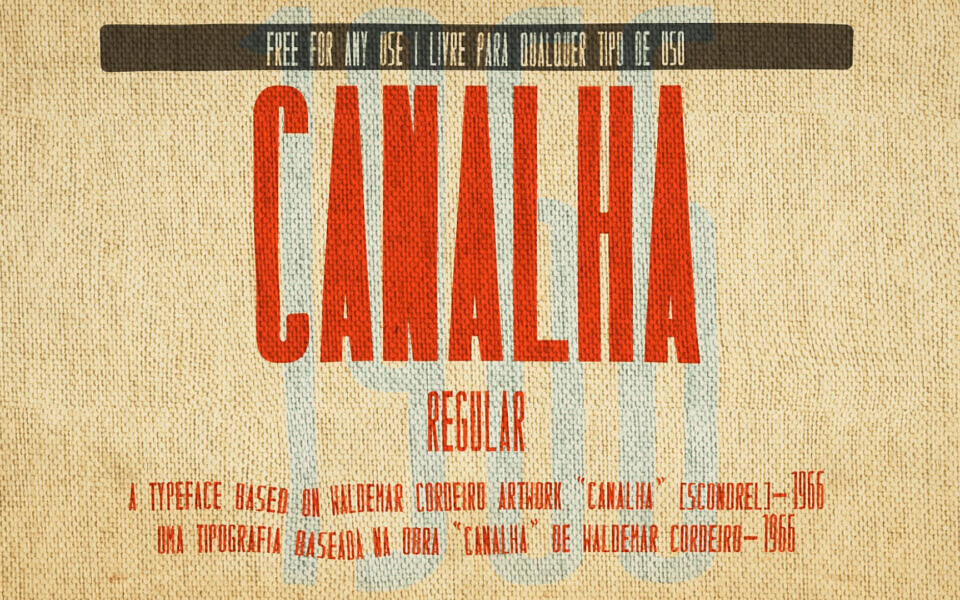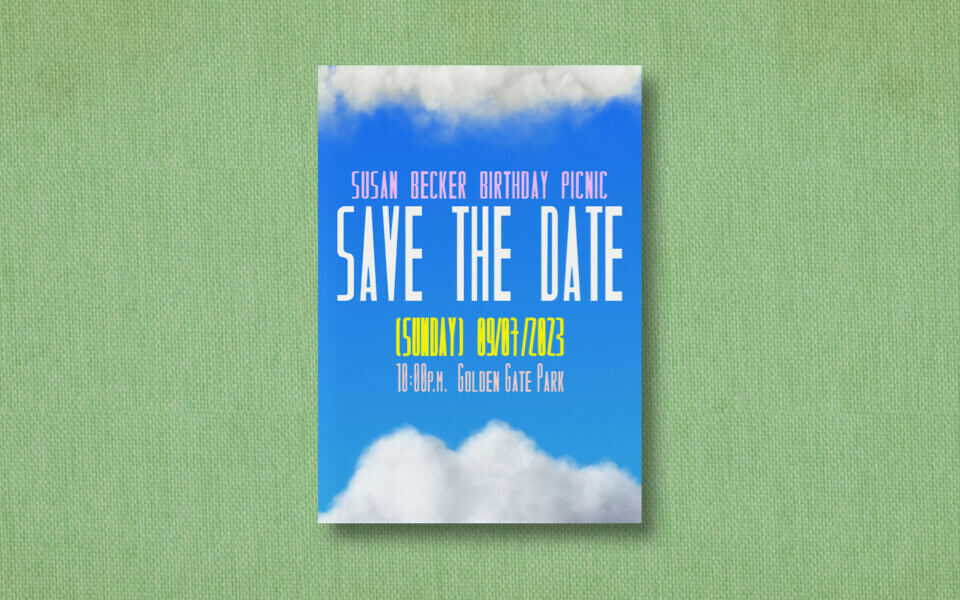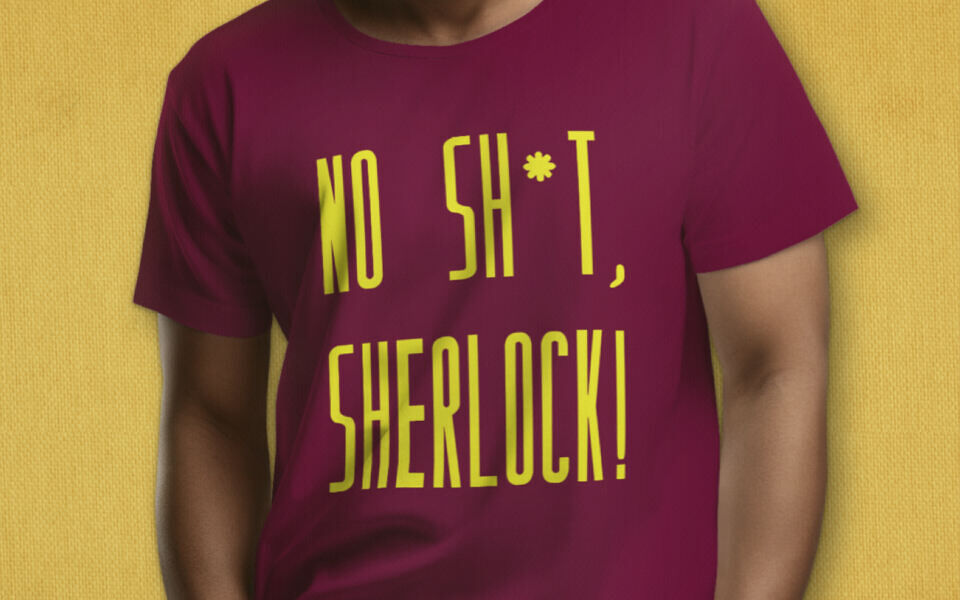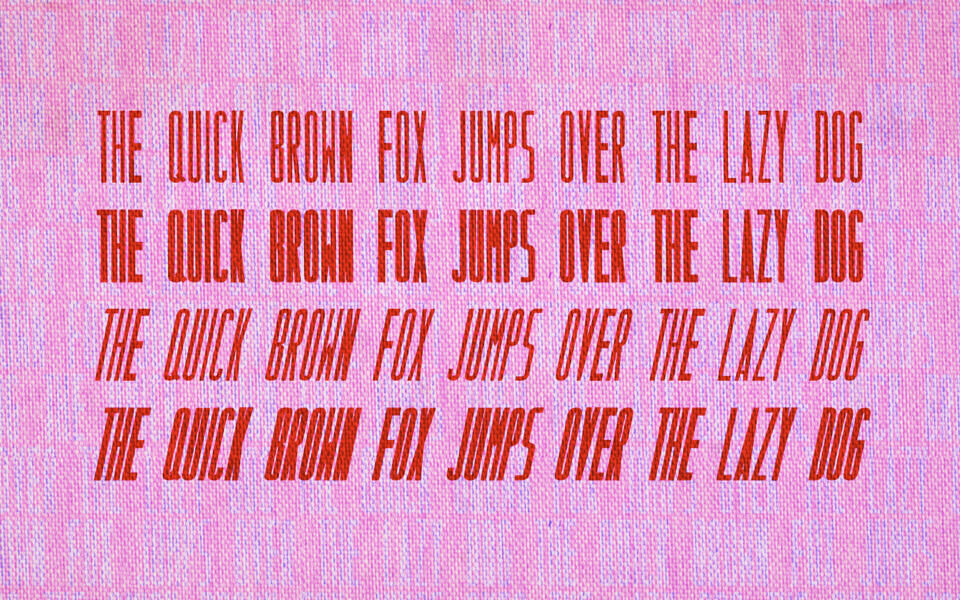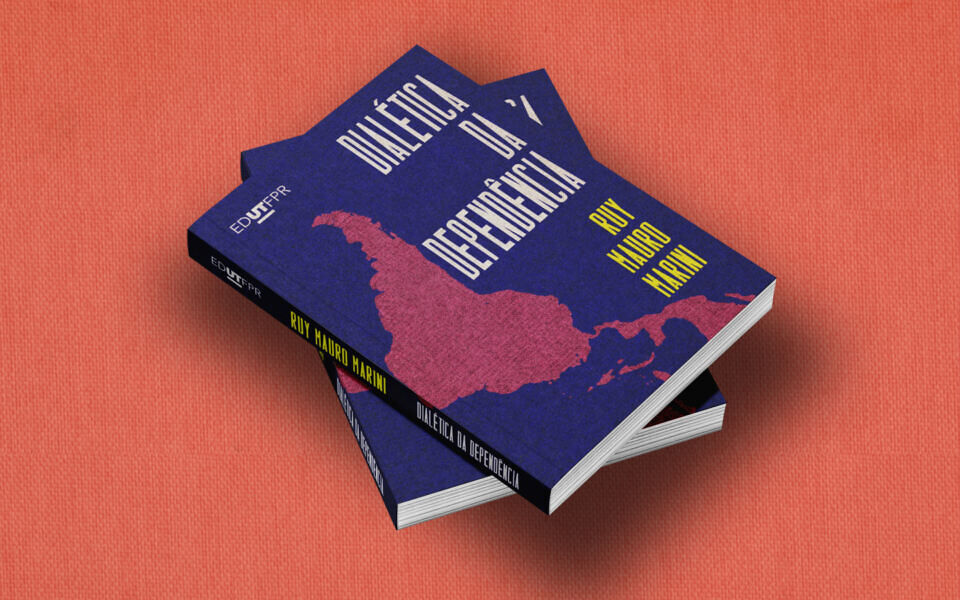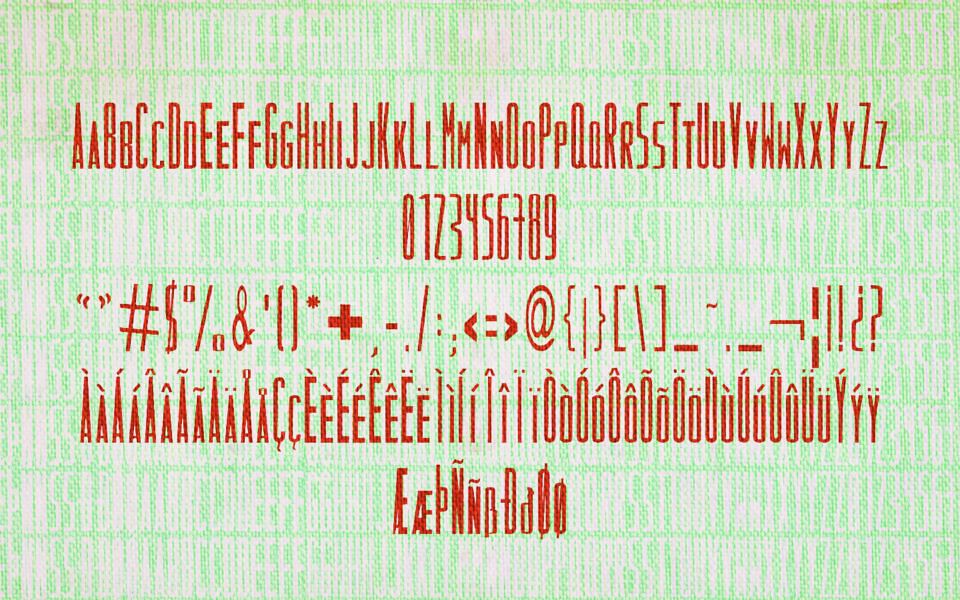
Canalha Font, designed by Mateus Pelanda, is a bold, rebellious typeface with a gritty, hand-drawn edge. Its rough, irregular letterforms exude a punk-inspired vibe, perfect for projects needing a raw, unpolished look.
Ideal for posters, album covers, or streetwear branding, Canalha brings an authentic, defiant energy to designs. With its unique texture and dynamic style, this font captures the essence of urban creativity, making every word feel like a statement.